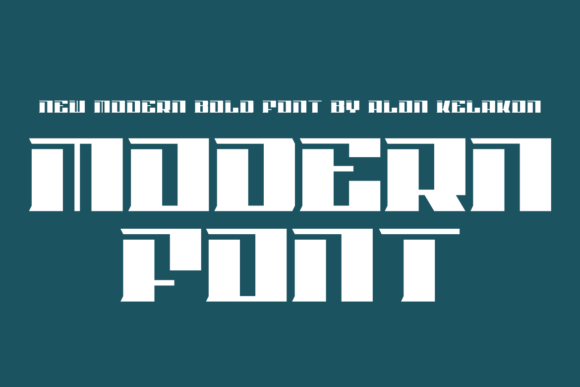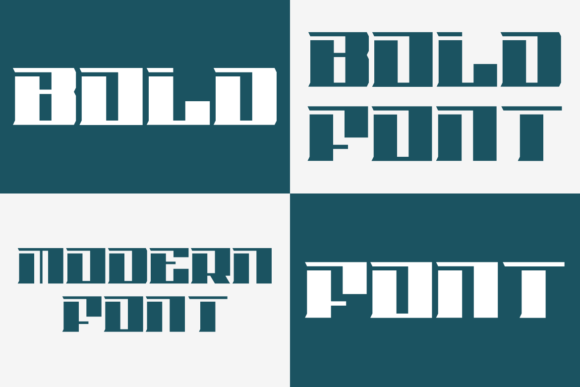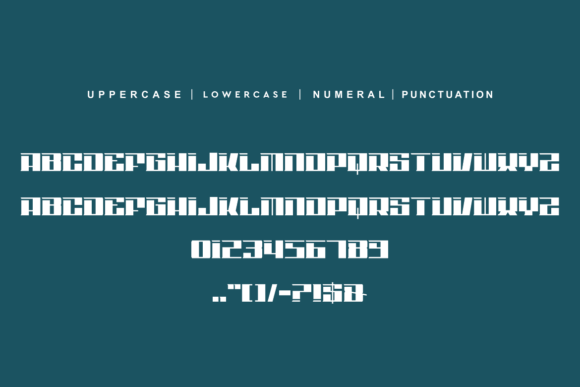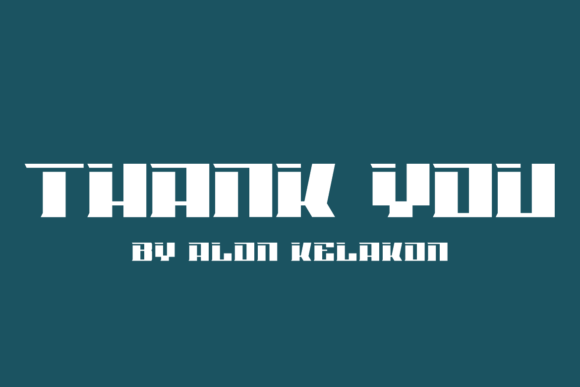
Unleash the Power of Black Kembar Font: A Bold and Commanding Display Font
In the world of typography, fonts play a crucial role in conveying messages, evoking emotions, and creating lasting impressions. For designers and crafters, finding the right font can make all the difference in their creative projects. If you’re looking for a font that exudes strength, confidence, and authority, look no further than the Black Kembar Font. This bold and powerful display font is designed to demand attention and make a statement, making it perfect for impactful headlines, logos, and posters.
The Characteristics of Black Kembar Font
Black Kembar Font is characterized by its thick and heavy characters, which have a commanding presence and a solid, substantial appearance. The letters are carefully crafted with sharp edges and clean lines, creating a sense of precision and control. This attention to detail gives the font a sense of sophistication and elegance, making it suitable for a wide range of design applications.
One of the key features of Black Kembar Font is its bold and powerful aesthetic. The font is designed to be eye-catching and attention-grabbing, making it perfect for headlines, titles, and other display text. The thick and heavy characters also give the font a sense of weight and substance, making it ideal for creating logos and branding materials that need to convey strength and authority.
The Benefits of Using Black Kembar Font
So, why choose Black Kembar Font for your design projects? Here are just a few benefits of using this powerful display font:
- Attention-grabbing: Black Kembar Font is designed to demand attention and make a statement. Its bold and powerful aesthetic ensures that your message will be seen and remembered.
- Versatile: Despite its bold and powerful aesthetic, Black Kembar Font is surprisingly versatile. It can be used for a wide range of design applications, from headlines and logos to posters and packaging.
- Easy to read: Despite its thick and heavy characters, Black Kembar Font is surprisingly easy to read. The clean lines and sharp edges make it clear and legible, even at small sizes.
- Customizable: Black Kembar Font can be customized to suit your design needs. You can adjust the size, color, and style to create a unique look that suits your brand or project.
How to Use Black Kembar Font in Your Design Projects
So, how can you use Black Kembar Font in your design projects? Here are a few ideas to get you started:
- Headlines and titles: Use Black Kembar Font to create attention-grabbing headlines and titles that demand attention.
- Logos and branding: Use Black Kembar Font to create logos and branding materials that convey strength and authority.
- Posters and flyers: Use Black Kembar Font to create eye-catching posters and flyers that grab attention and leave a lasting impression.
- Packaging: Use Black Kembar Font to create bold and eye-catching packaging that stands out on store shelves.
In conclusion, Black Kembar Font is a bold and powerful display font that demands attention and exudes strength. Its thick and heavy characters have a commanding presence, with a solid and substantial appearance that inspires confidence and authority. With its attention to detail, versatility, and ease of use, Black Kembar Font is the perfect choice for designers and crafters looking to make a statement with their design projects. Whether you’re creating headlines, logos, posters, or packaging, Black Kembar Font is sure to leave a lasting impression.